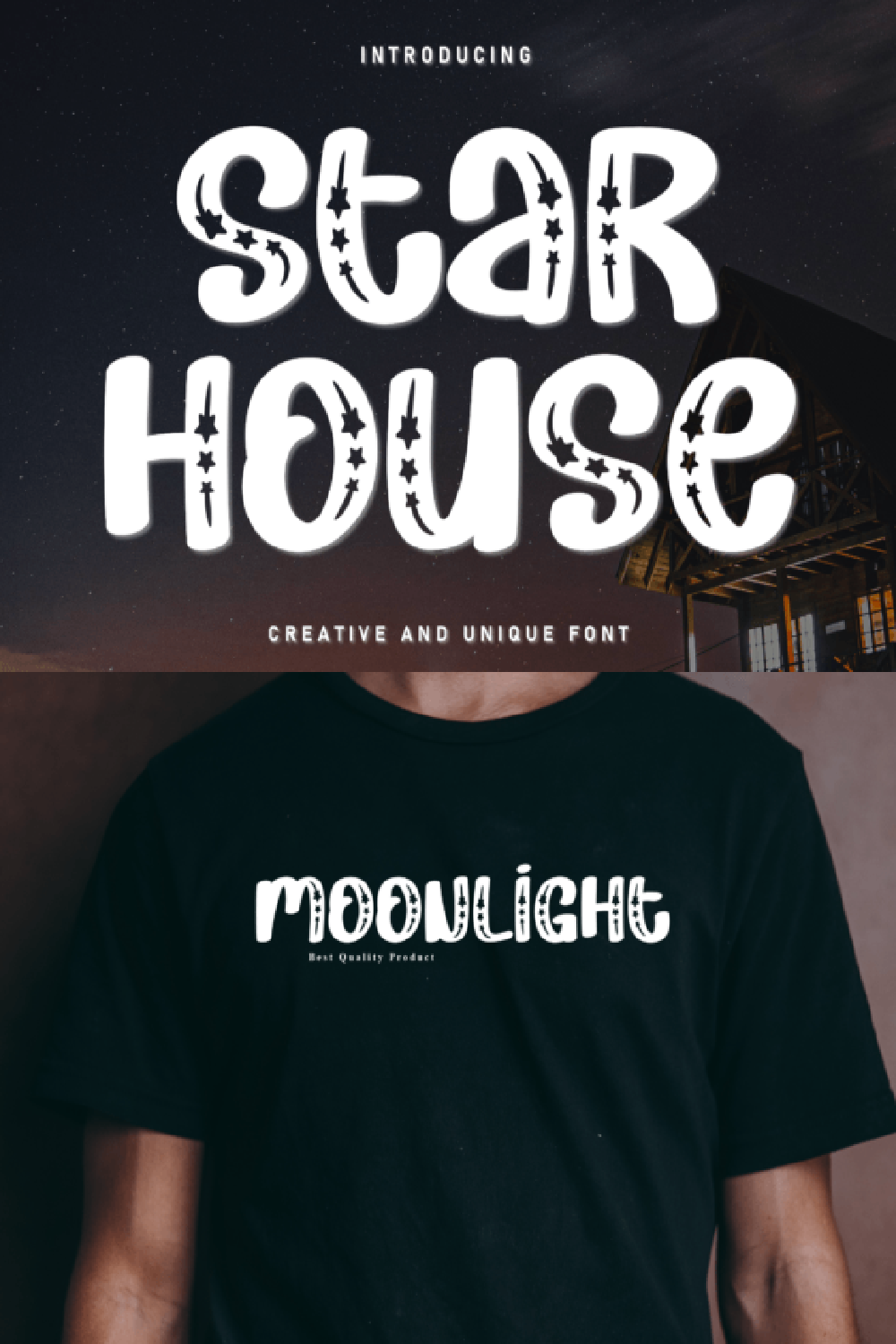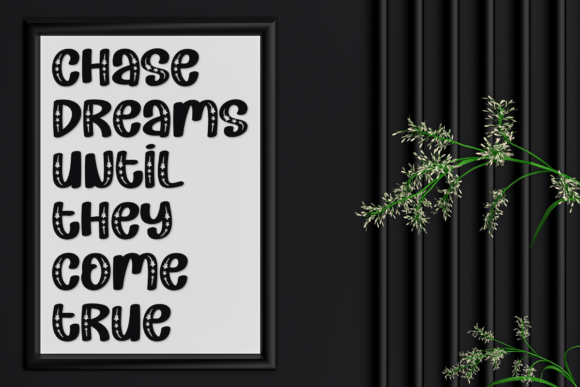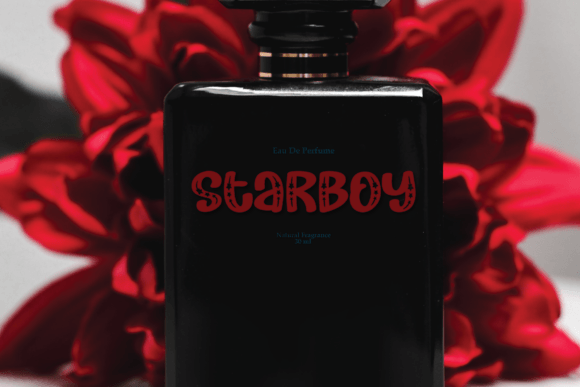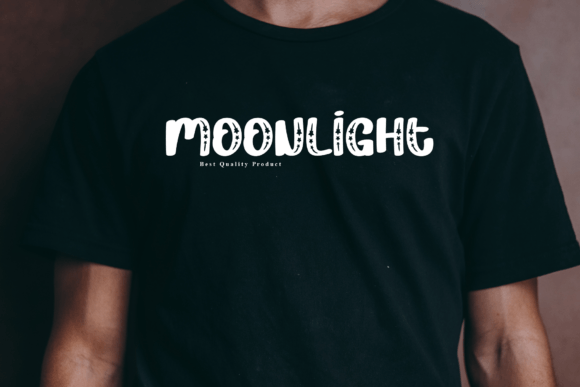
Star House Font
About the Star House Font
Crafted with precision, the Star House Font is ready to bring your ideas to life. Star House
is a bold and decorative font filled with stars inside the letter shapes. Its playful design gives a fun and dreamy vibe, perfect for adding a whimsical touch to any project!